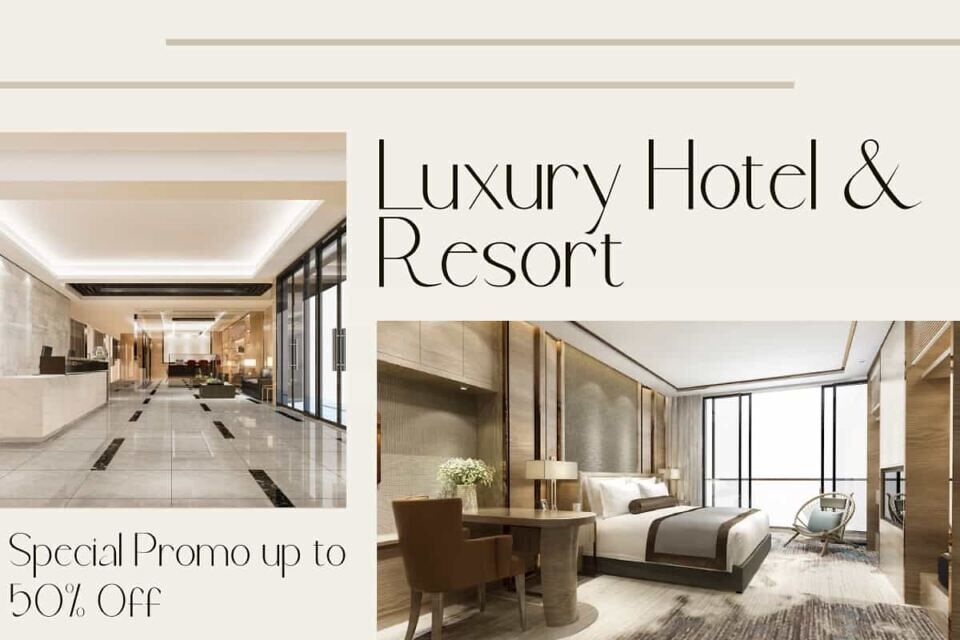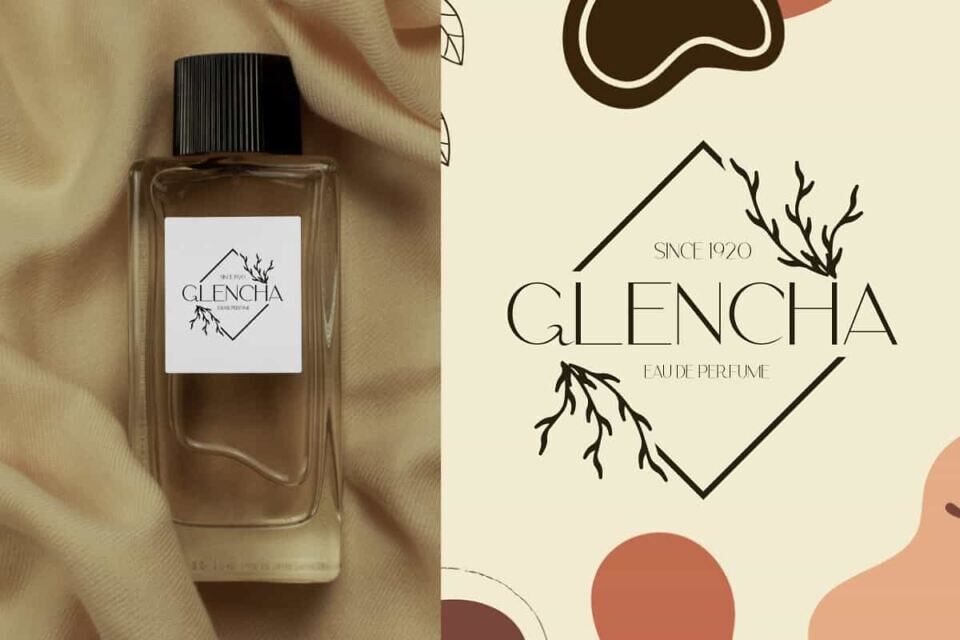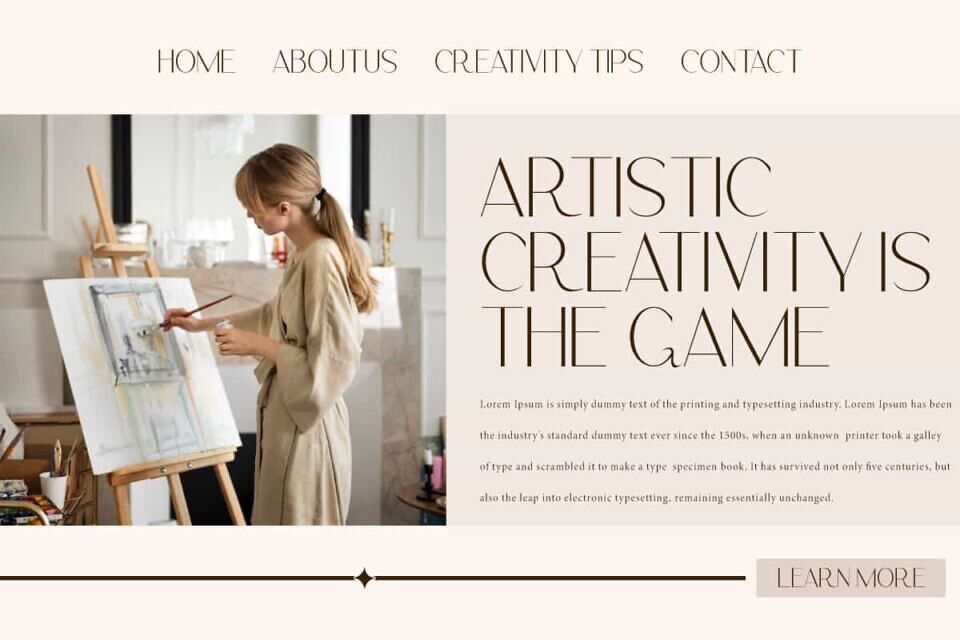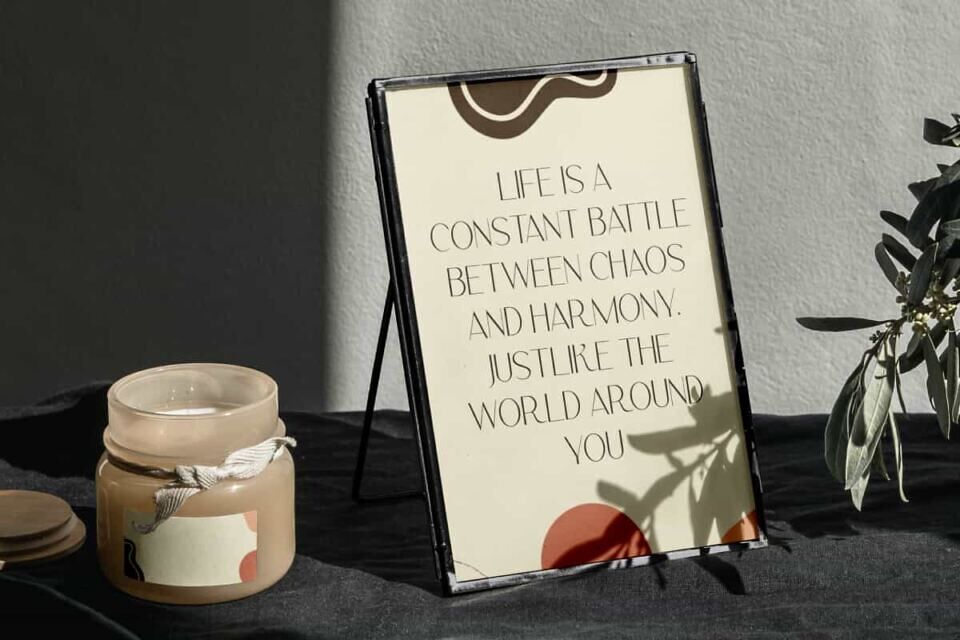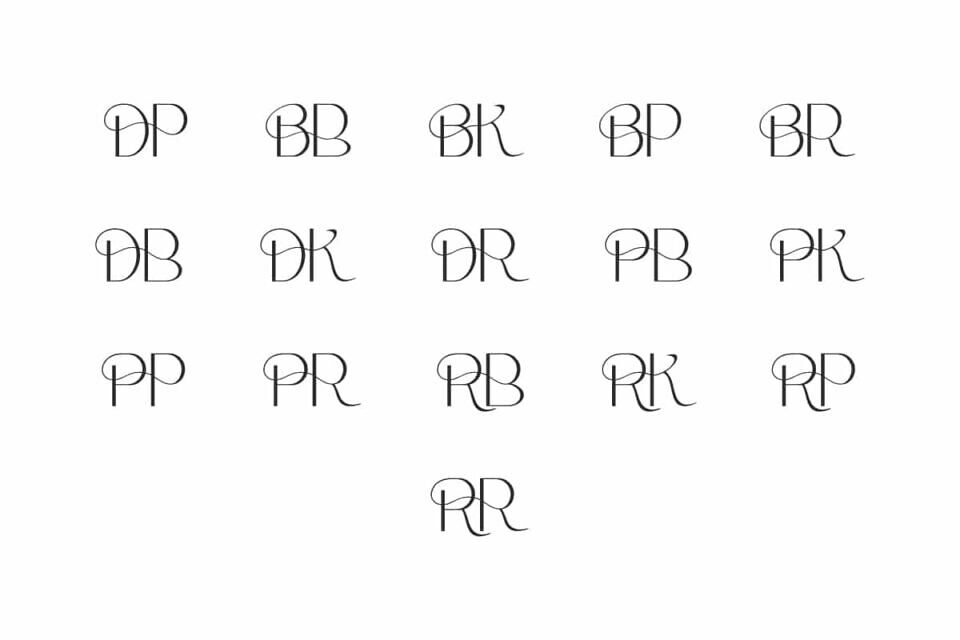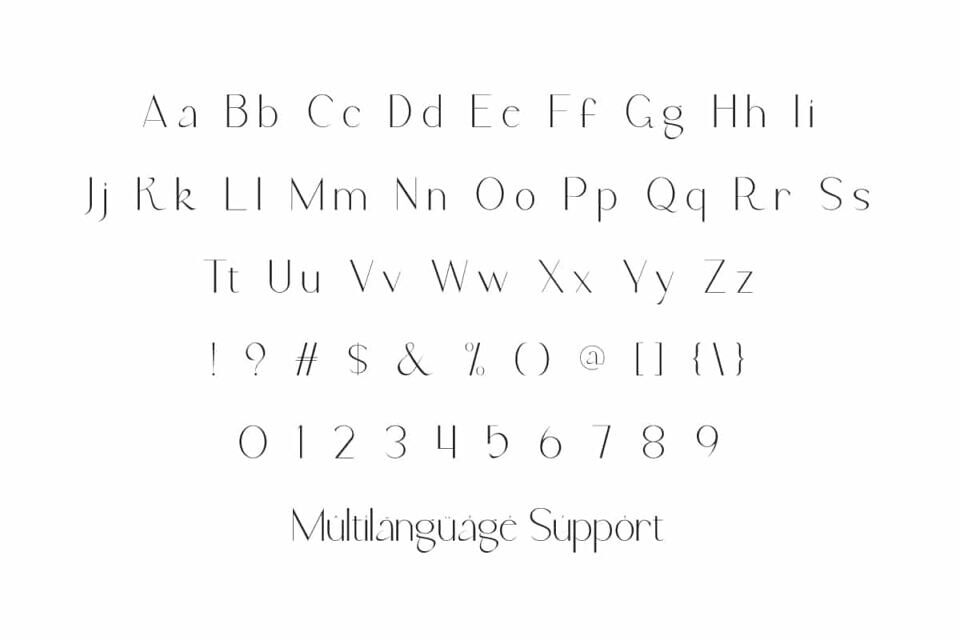
Andrea Rainle Font is a sans serif display font designed in a minimalist and elegant style. Combining thin, clean letterforms, this font will be perfect for any project, such as advertisement, blog, brand image, gift box, invitation, label, quotes, signboard, template design purpose, website, and many more.
Andrea Rainle Font includes full set of Uppercase and Lowercase Basic Characters, Numerals, Punctuation, and Symbol. This font presents a luxurious Ligature character with a unique touch. This font is perfect for various business needs, such as accessories and jewelry, cosmetic, event or wedding organizer, fashion, florist, furniture, real estate, skincare, spa salon, etc.